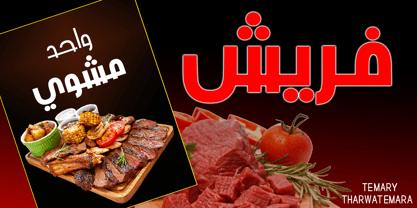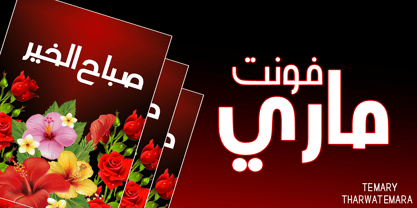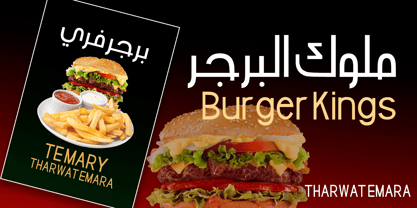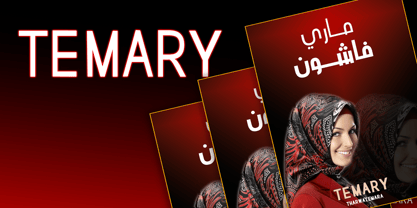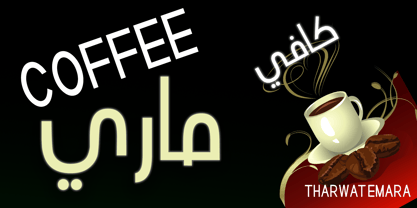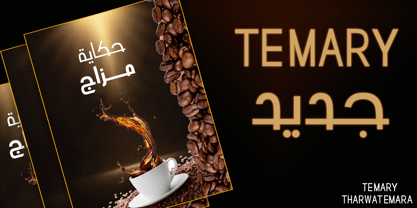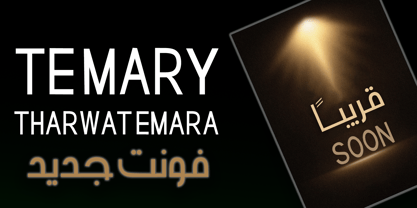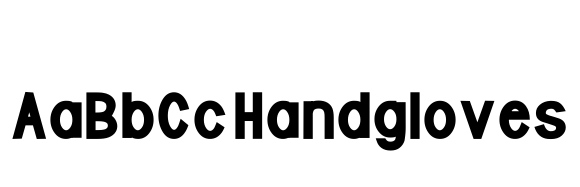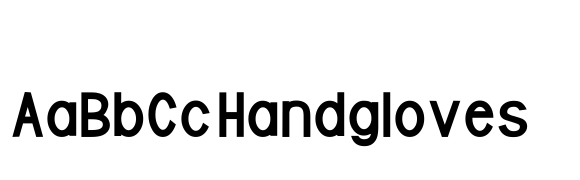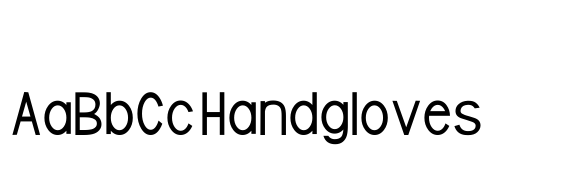
TE Mary
par Tharwat Emara
La famille de polices TE Mary a été conçue par Tharwat Mohamed Emara et publiée par Tharwat Emara. TE Mary contient 3 styles et options de package familial. En savoir plus sur cette famille
TE MARY is a contemporary, multilingual typeface that expertly balances modern geometric precision with effortless readability. Designed to seamlessly connect Arabic and Latin scripts, TE MARY provides a cohesive and sophisticated typographic voice, making it ideal for a variety of branding and design projects. This font family is available in three meticulously crafted weights (Medium, Regular, Bold), offering the essential range needed for hierarchical clarity—from delicate body copy to bold, striking headlines. **Key Highlights:** - **Multilingual Harmony:** A fully unified design that supports both Arabic and extensive Latin character sets. - **3 Versatile Weights:** Optimized contrast and proportions across all styles for seamless pairing. - **Screen & Print Ready:** Exceptional clarity on digital displays, web interfaces, and high-resolution print. **Best Uses:** - Multilingual Branding & Corporate Identities - Editorial Design, Magazines & Publications - UI/UX Interfaces & Mobile Applications - Packaging, Signage & Social Media Visuals
Tharwat Emara is an esteemed Egyptian calligrapher, renowned for his exceptional work in the field of Arabic calligraphy. He is recognized for his unique style and his ability to seamlessly blend tradition with innovation, resulting in a body of work that is both timeless and contemporary.Born in Egypt, Tharwat Emara developed a passion for calligraphy at a young age. He honed his skills through years of dedicated practice and study, eventually becoming one of the most prominent calligraphers in the country. His work has been exhibited around the world, and his fonts have been used in a variety of media, including books, advertisements, and logos.What sets Tharwat Emara apart from other calligraphers is his ability to create fonts that are both beautiful and functional. He understands that calligraphy is not just an art form, but a means of communication, and his fonts reflect this understanding. They are clear, legible, and easy to read, while also retaining the aesthetic beauty that is so important to the art of calligraphy.Tharwat Emara's fonts are also notable for their versatility. He has created fonts that are suitable for a wide range of applications, from elegant wedding invitations to bold, modern advertising campaigns. Whether you're looking for a font that is classic and timeless or something that is cutting-edge and contemporary, Tharwat Emara has a font that will suit your needs. One of the things that makes Tharwat Emara's fonts so special is the attention to detail that he puts into every design. He understands that each letter is a work of art in itself, and he approaches each design with the same level of care and precision that he would if he were creating a standalone piece of calligraphy. This attention to detail ensures that each font is not only beautiful, but also functional and easy to use. In addition to his work as a calligrapher, Tharwat Emara is also an accomplished teacher. He has taught calligraphy to students around the world, and his workshops are highly sought-after by both beginners and experienced calligraphers. His approach to teaching is based on his belief that calligraphy is a discipline that requires patience, dedication, and a willingness to learn from both success and failure. He encourages his students to explore their creativity and to find their own unique style, while also providing them with the technical skills they need to create beautiful calligraphy.If you're looking for a calligrapher who combines tradition with innovation, who creates fonts that are both beautiful and functional, and who approaches his work with the utmost care and precision, then Tharwat Emara is the perfect choice. His fonts are among the most distinctive and recognizable in the world of Arabic calligraphy, and they are sure to add a touch of elegance and sophistication to any project.